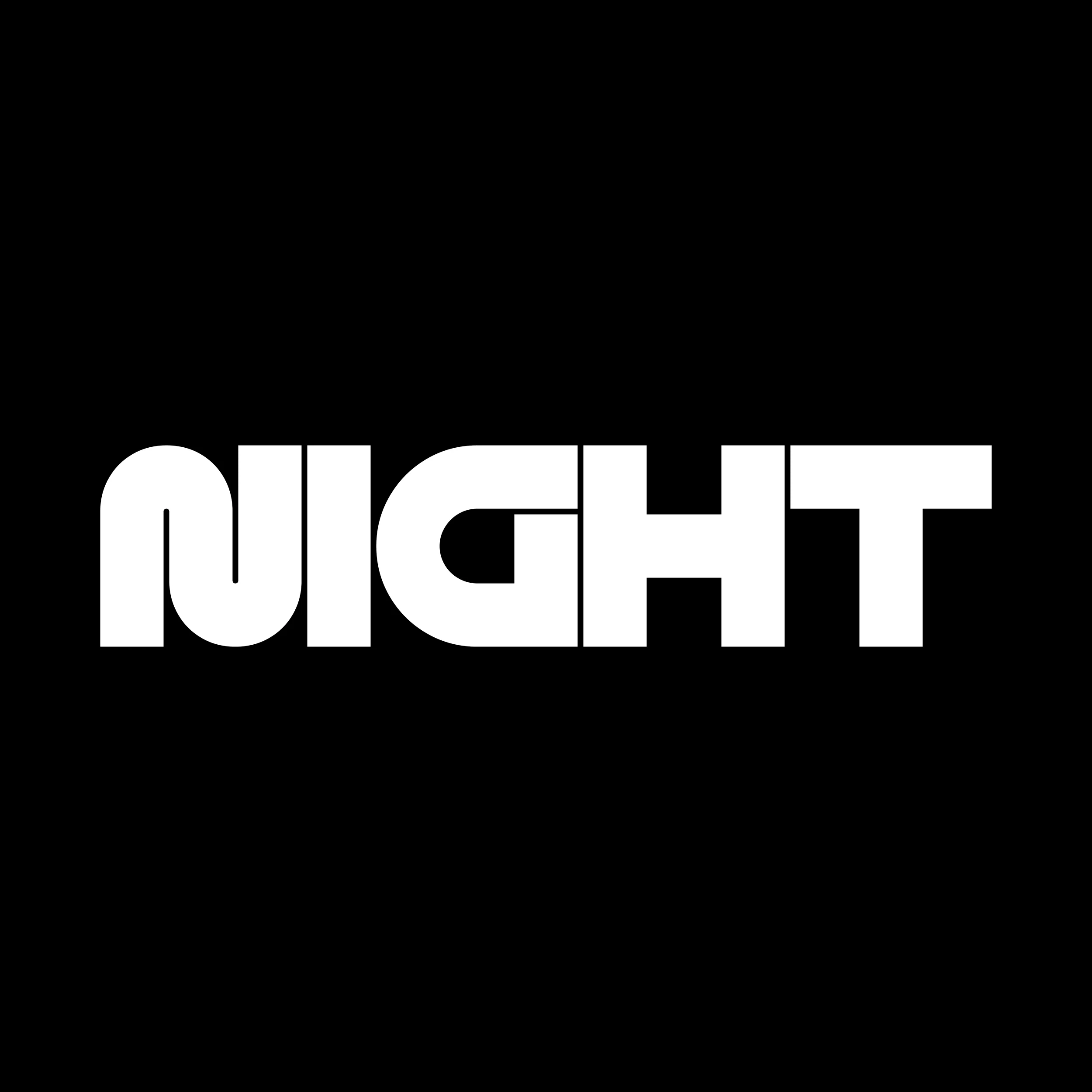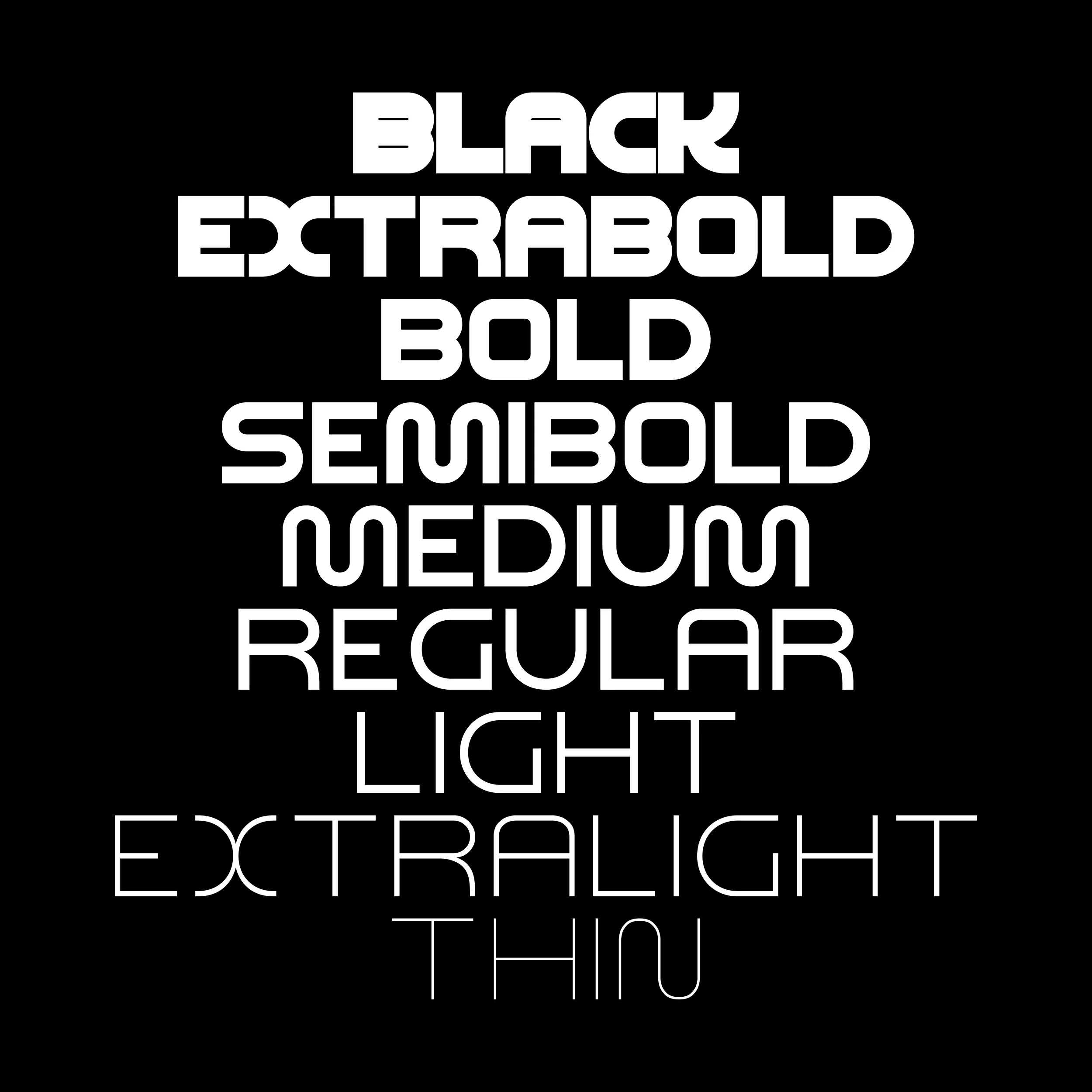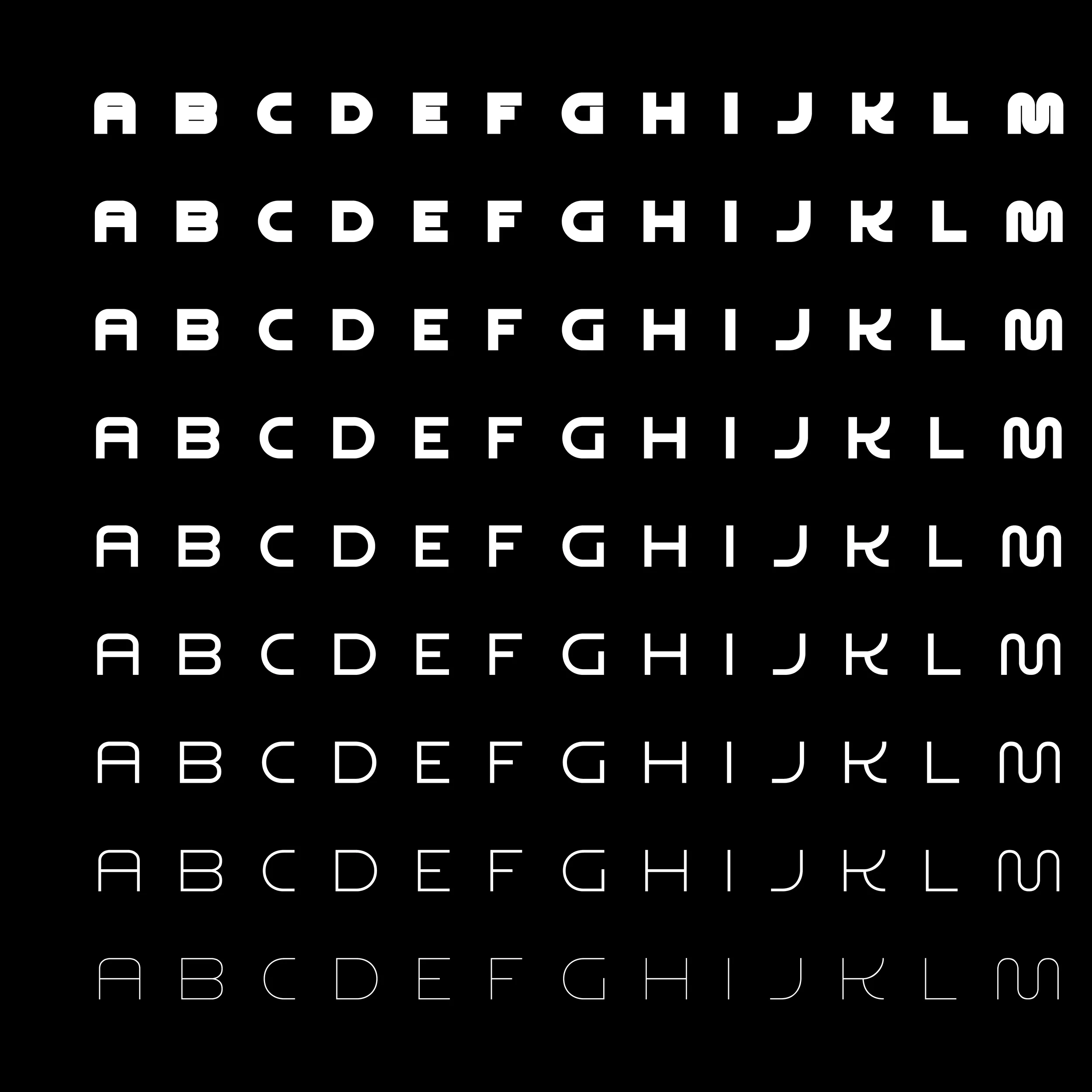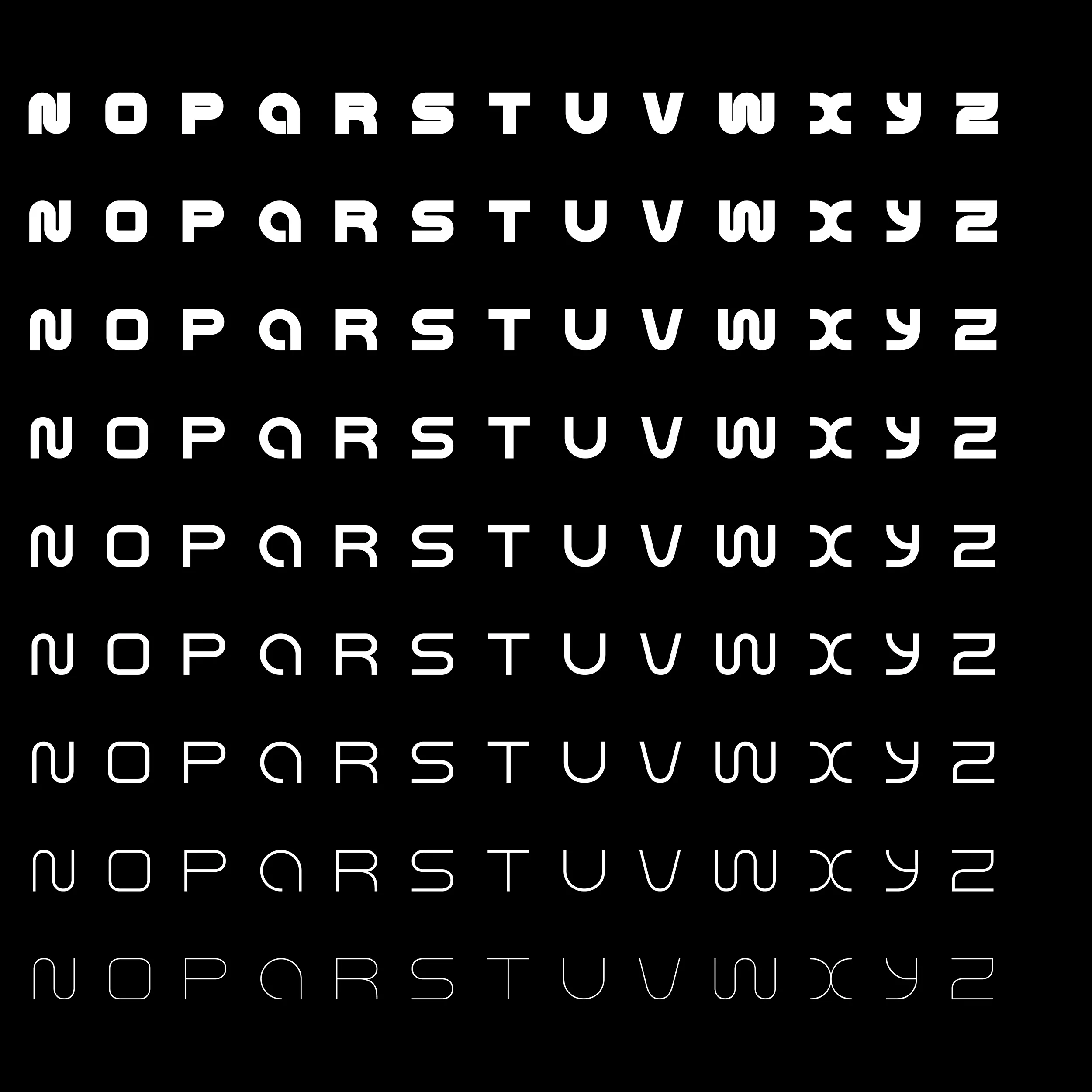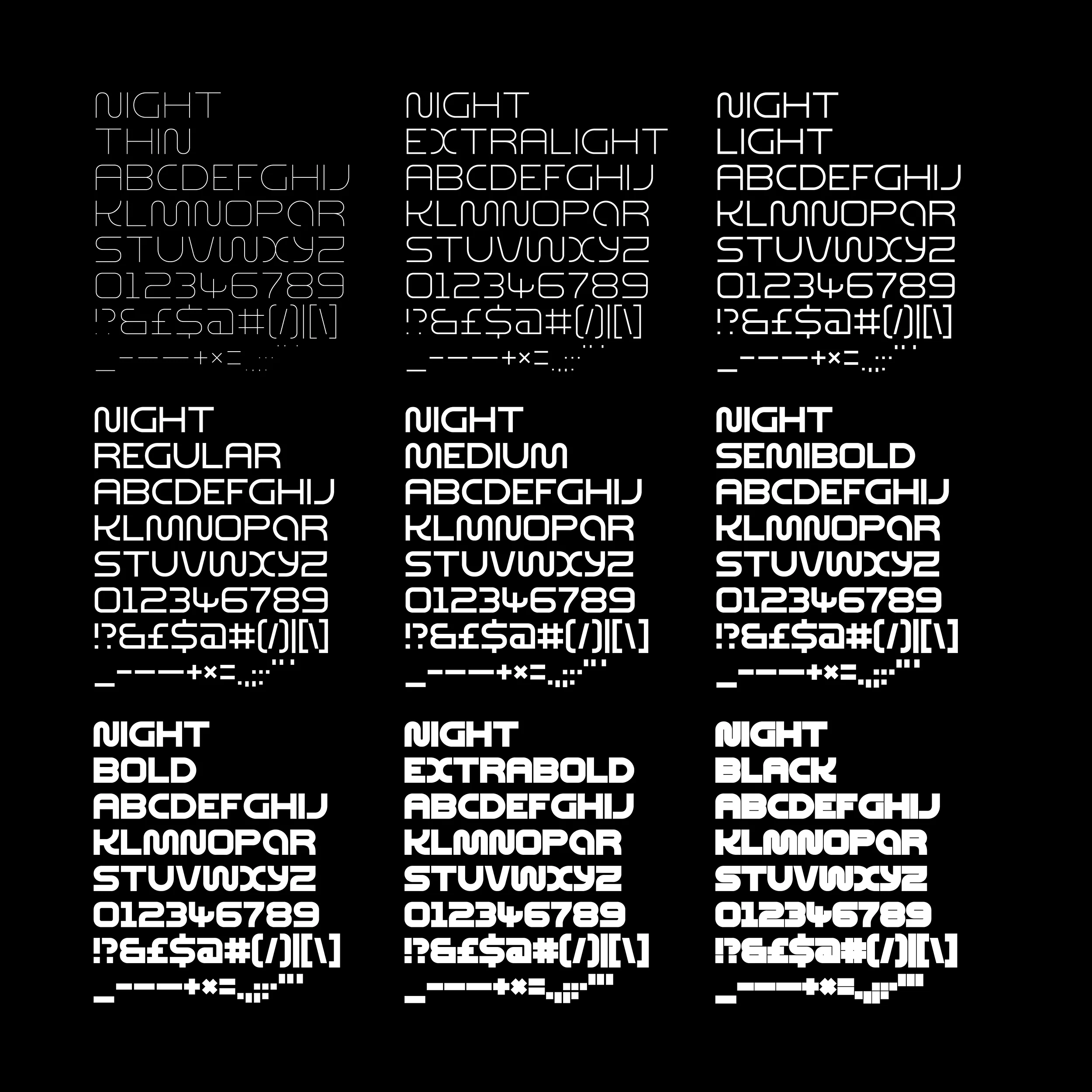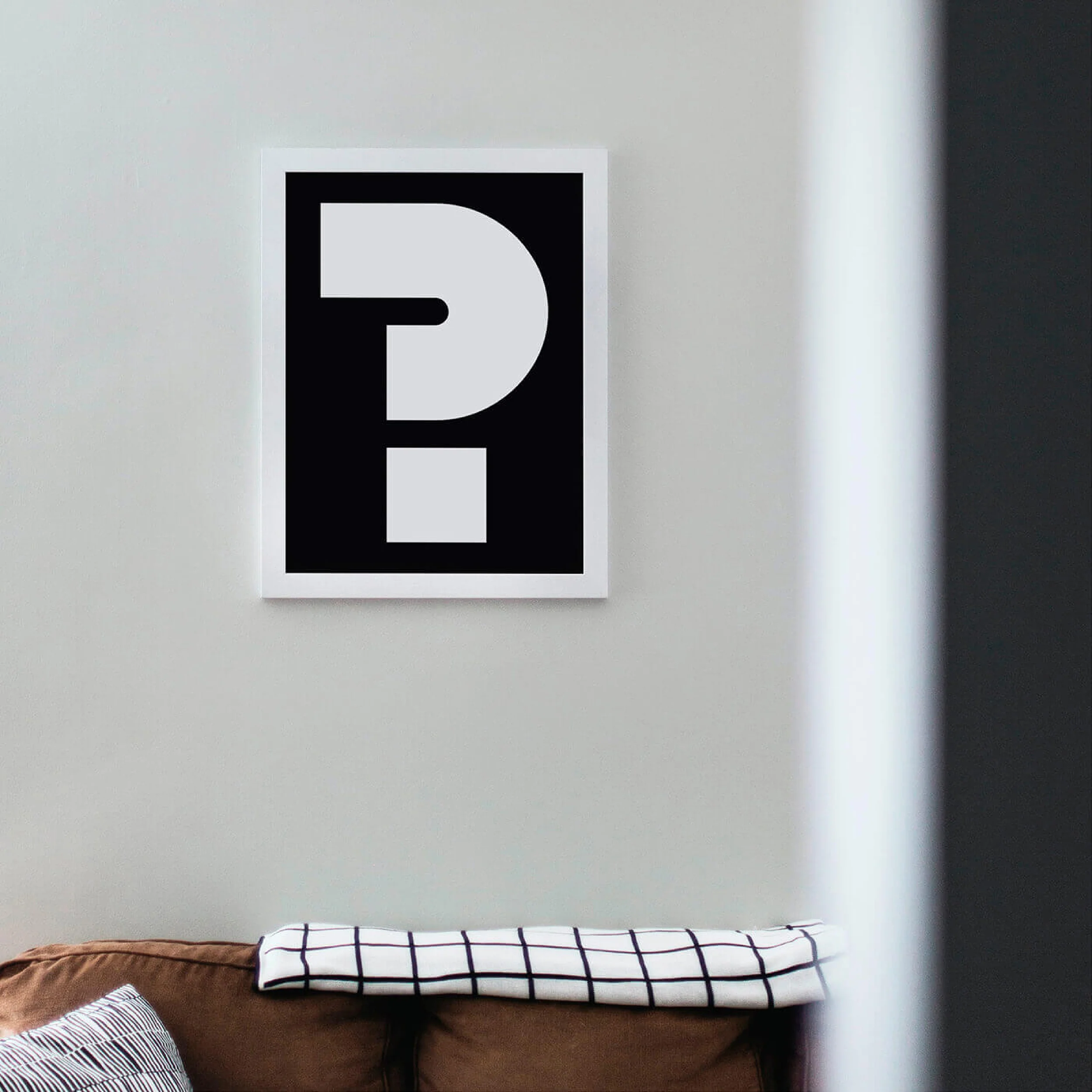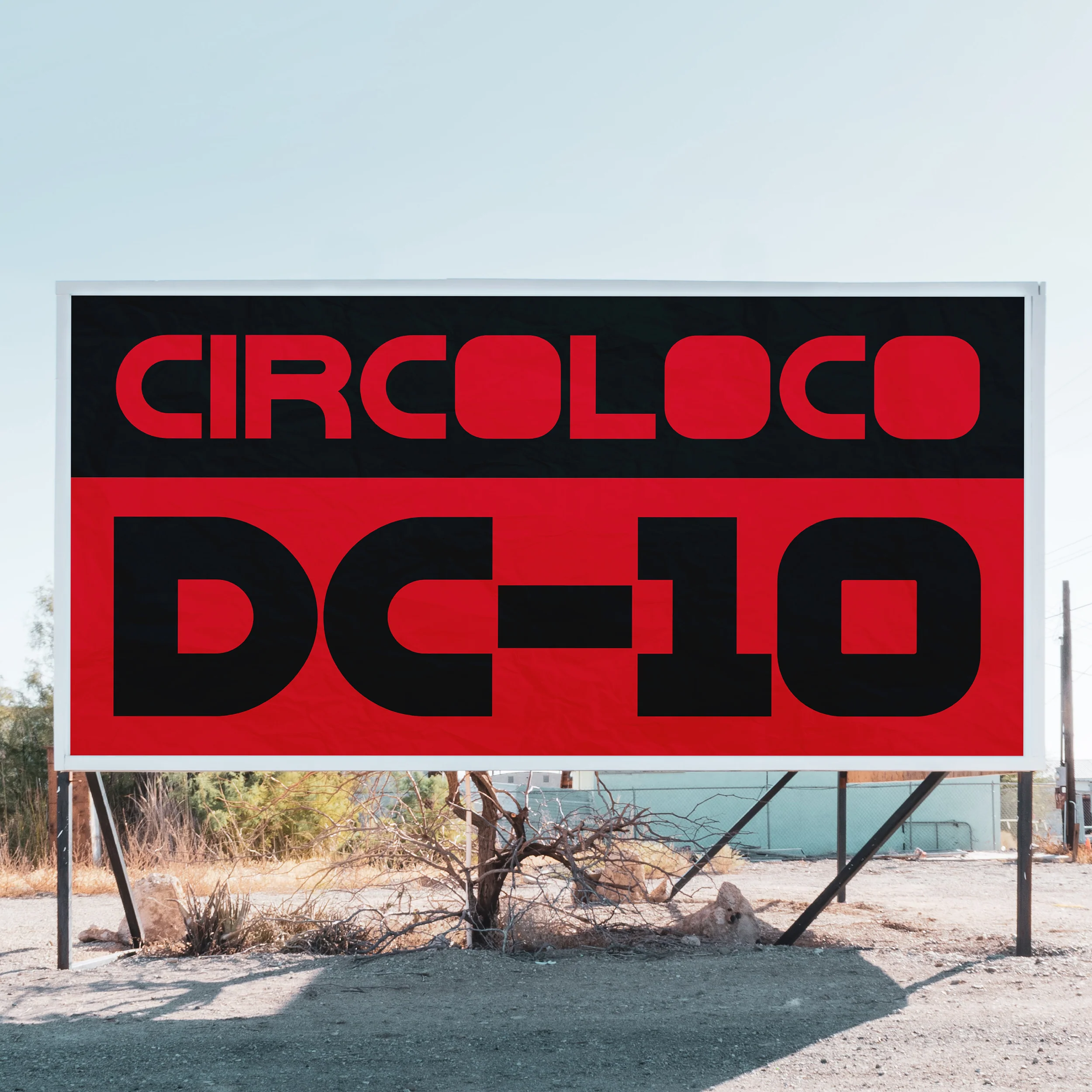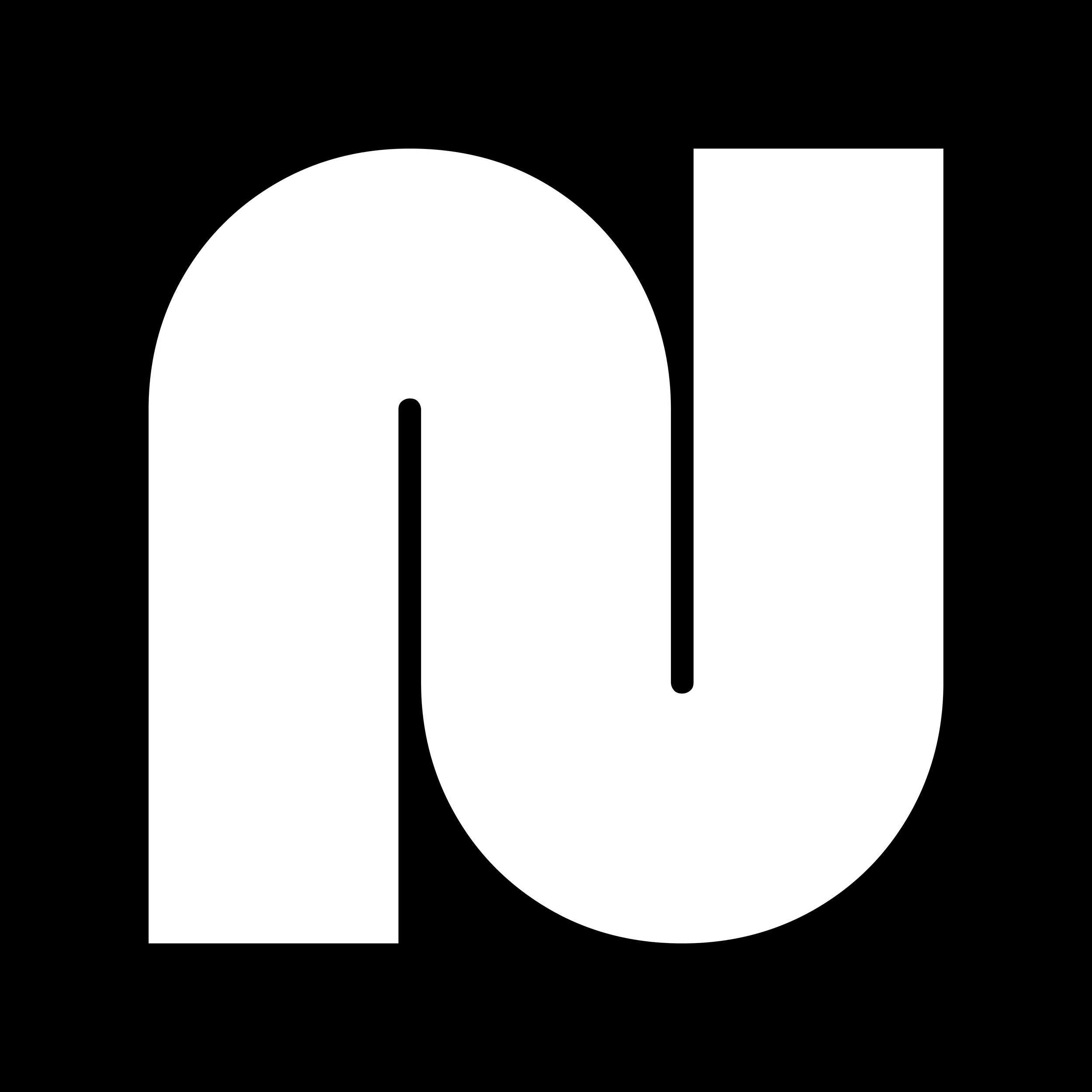
Night Variable Display
Inspired by the night and club culture with a futuristic twist, Night Variable Display is an extensive variable font featuring nine weight styles. This innovative typeface can be linked to sound and lighting technology, transforming typography and logotypes into a dynamic, immersive experience—redefining the way we approach design